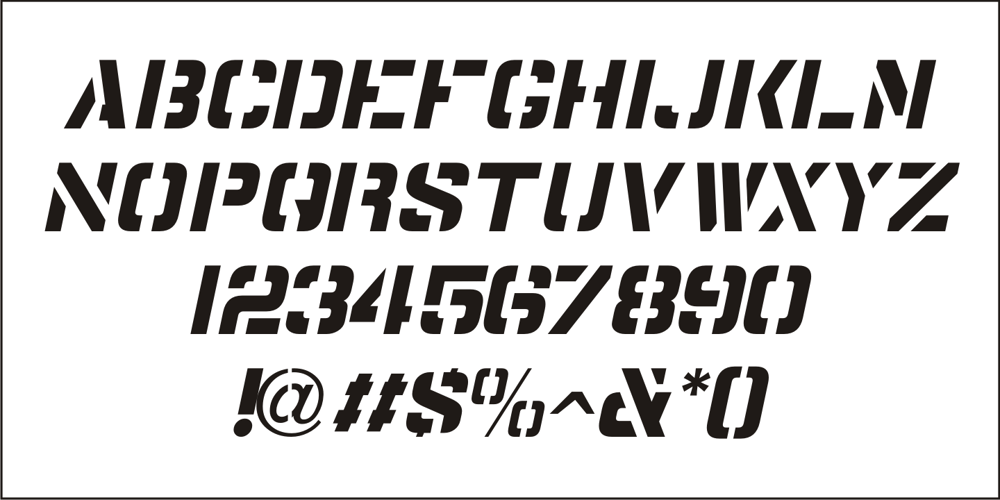
Industrial Stencil JNL Font Family was designed by Jeff Levine and published by Jeff Levine. Industrial Stencil JNL contains 2 styles and family package options. Samples of vintage machine-punched stencils used for marking crates and cartons were spotted in an online auction. These served as the basis for Industrial Stencil JNL, which is available in both regular and oblique versions.